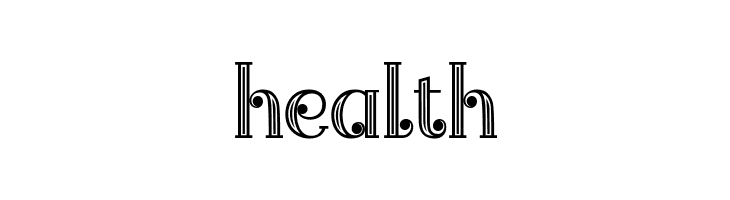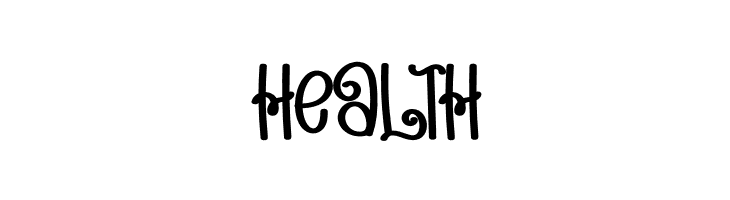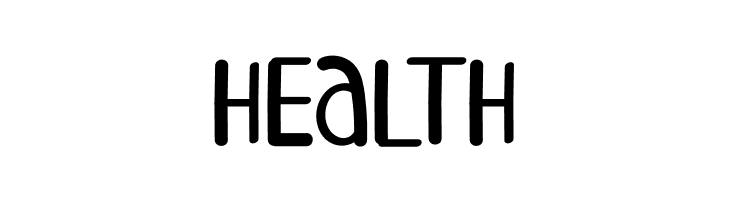
A playful and whimsical decorative font with unique, rounded letterforms.
An elegant, flowing script font with sophisticated cursive letterforms.
A graceful script font with flowing, cursive characters and elegant styling.
A playful and energetic script font with bold, flowing strokes and a handwritten quality.
A dynamic and expressive script font with flowing, cursive letterforms.
A playful, rounded font with a casual, handwritten style.
A playful, bubble-like font with thick outlines and a cartoonish style.
An elegant and flowing script font with intricate, decorative letterforms.
A bold, playful font with a cartoon-like, quirky style.
A bold, playful handwritten font with rounded strokes and a lively style.
A playful, handwritten font with bold, flowing strokes and dynamic contrast.
A bold, playful font with a hand-drawn, cartoonish style.
A bold, playful font with a cartoonish and energetic style.
A bold, playful font with rounded, cartoonish characters.
A bold, playful font with a 3D shadow effect and cartoonish style.
A playful, bold font with rounded, cartoonish characters.
A spooky, dripping font perfect for horror themes.
A bold, decorative font with vintage flair and high contrast strokes.
A playful, italicized font with smooth, rounded characters.
A playful, hollow outline font with smooth, rounded edges.
A playful, bold, and rounded font with a whimsical, cartoonish style.
A playful, bold font with cartoonish, dynamic characters.
A rugged, distressed font with a hand-drawn, vintage style.
A bold, playful font with a cartoonish and whimsical style.
A bold, playful typeface with rounded, cartoonish characters.
A bold, cartoonish font with thick outlines and playful character shapes.
A bold, cartoonish font with rounded edges and a playful style.
A dynamic and flowing script font with elegant, interconnected strokes.
A playful, outlined font with a whimsical, hand-drawn style.
A bold, playful font with a spooky, hand-drawn style.
An elegant, flowing script font with smooth, cursive strokes and sophisticated loops.
An intricate and gothic Blackletter-style font with sharp, angular strokes and elaborate flourishes.
A playful, bold font with a bubbly, cartoonish style and rounded strokes.
A bold, rounded, and playful font with a cartoonish style.
A fluid and elegant script font with a natural handwriting style.